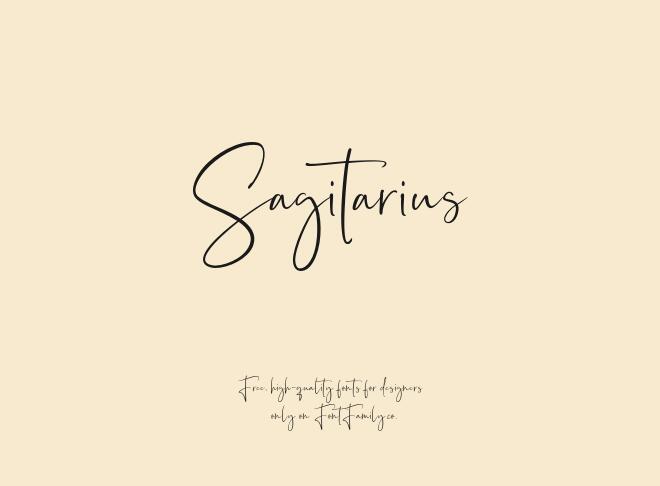
Sagitarius Font
Sagitarius Font is a whimsical, playful typeface that brings a sense of joy and creativity to any design project. Its distinctive script style, with hand-drawn lettering, gives it a unique, personal touch that stands out from the crowd. Sagitarius Font is ideal for a variety of design uses, including children's books, playful branding, creative advertising, and more. It shares similarities with other playful script fonts but stands out for its unique character and individuality. Its open font license makes it a great choice for both personal and commercial projects. Download Sagitarius Font today to add a touch of fun and creativity to your designs.